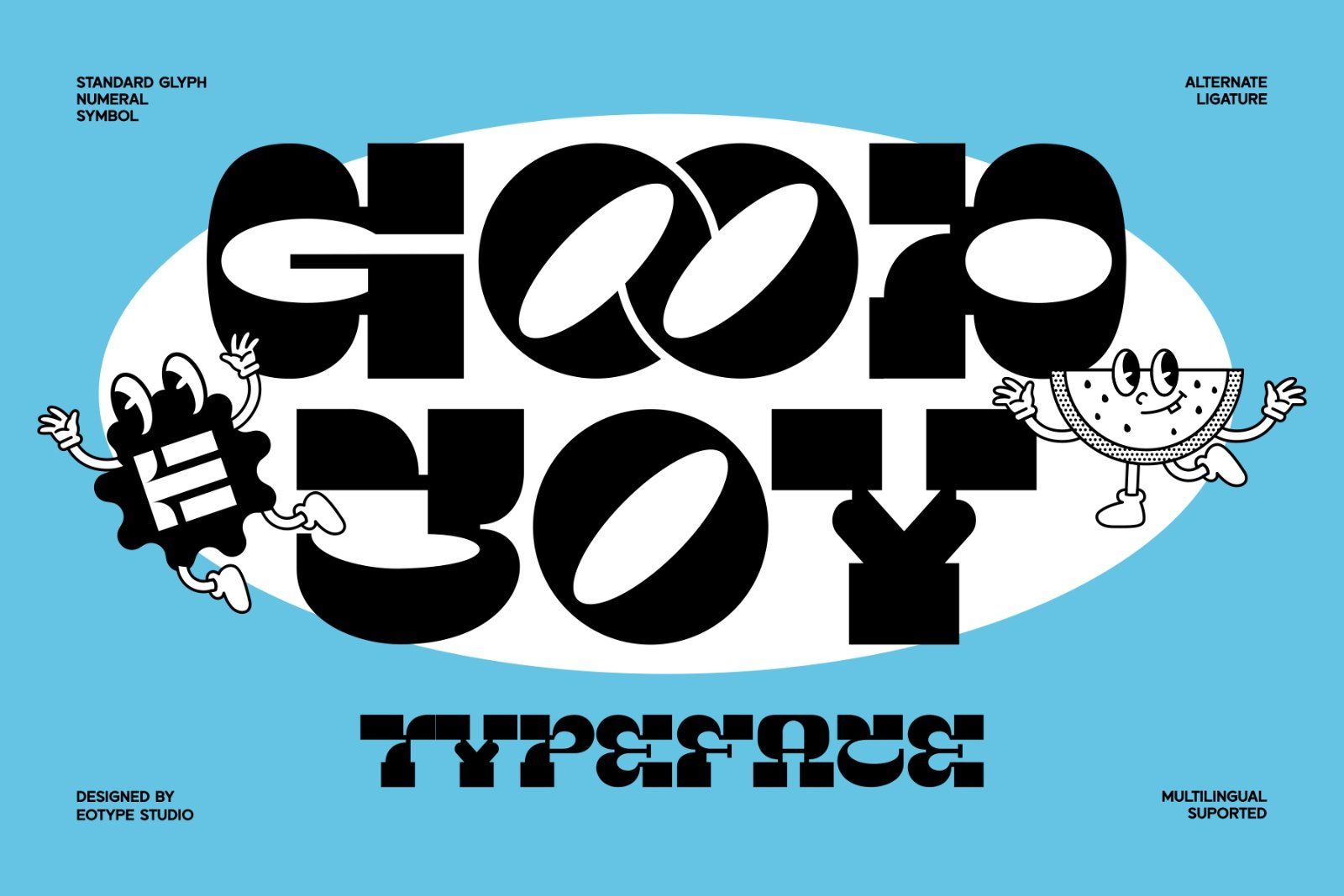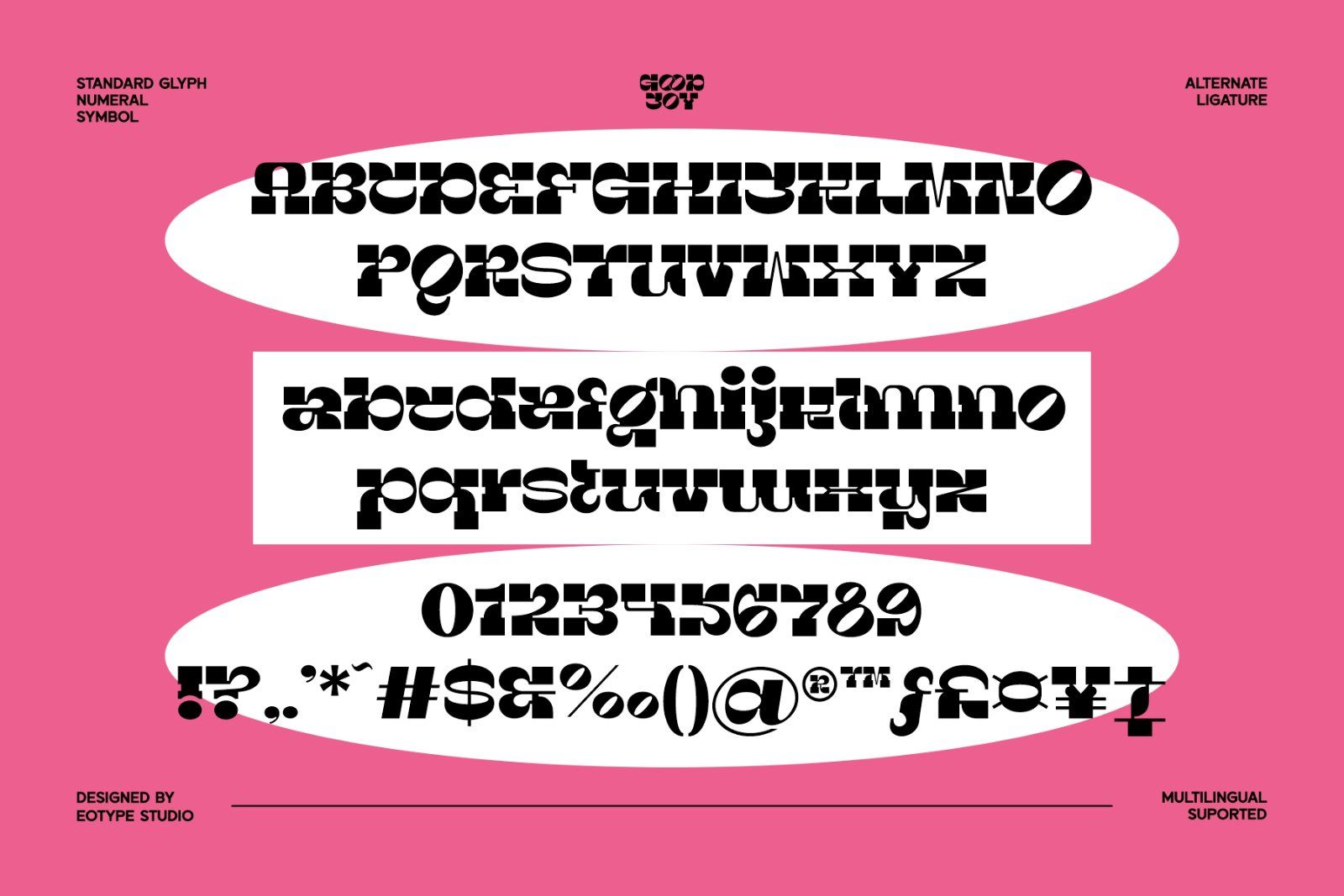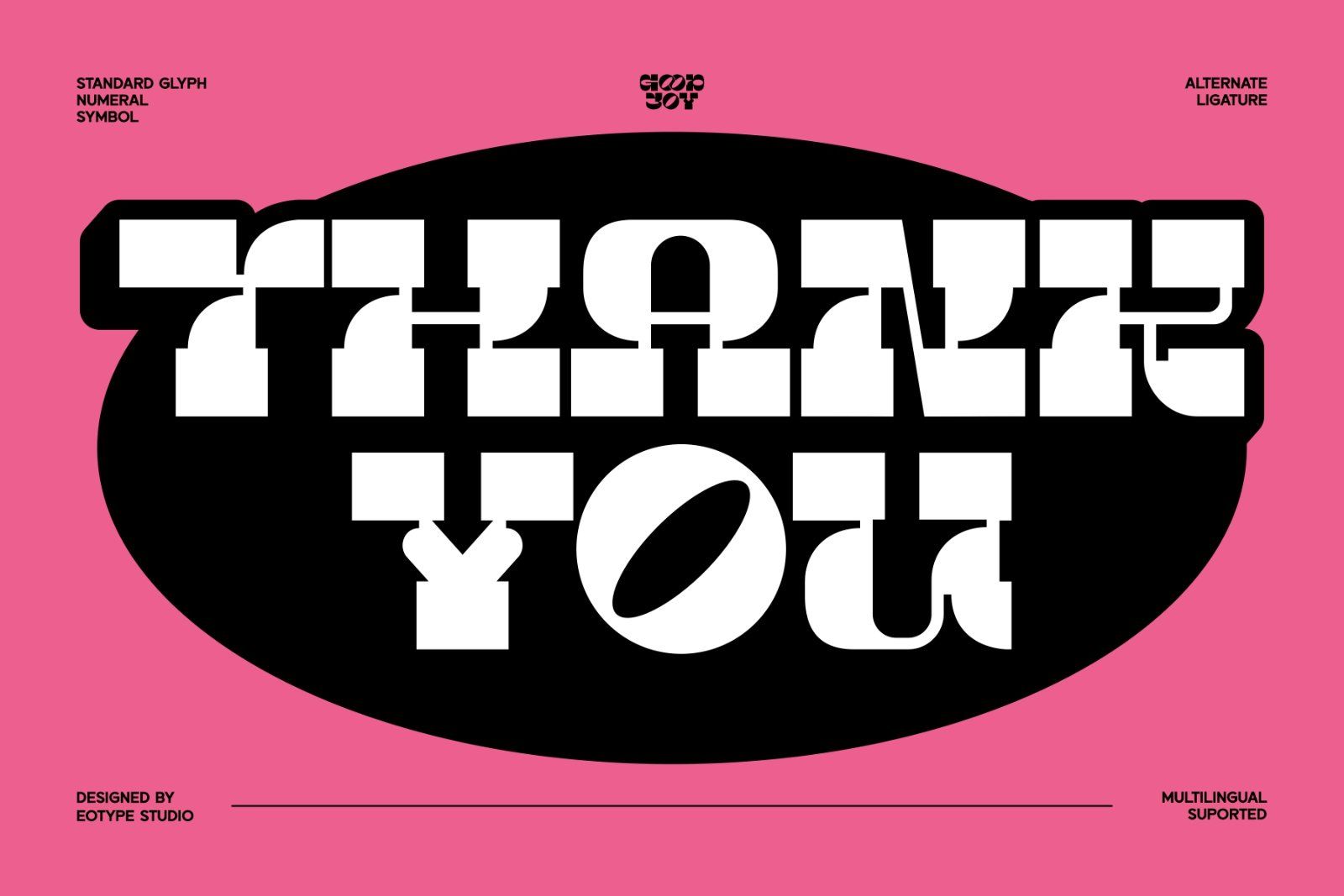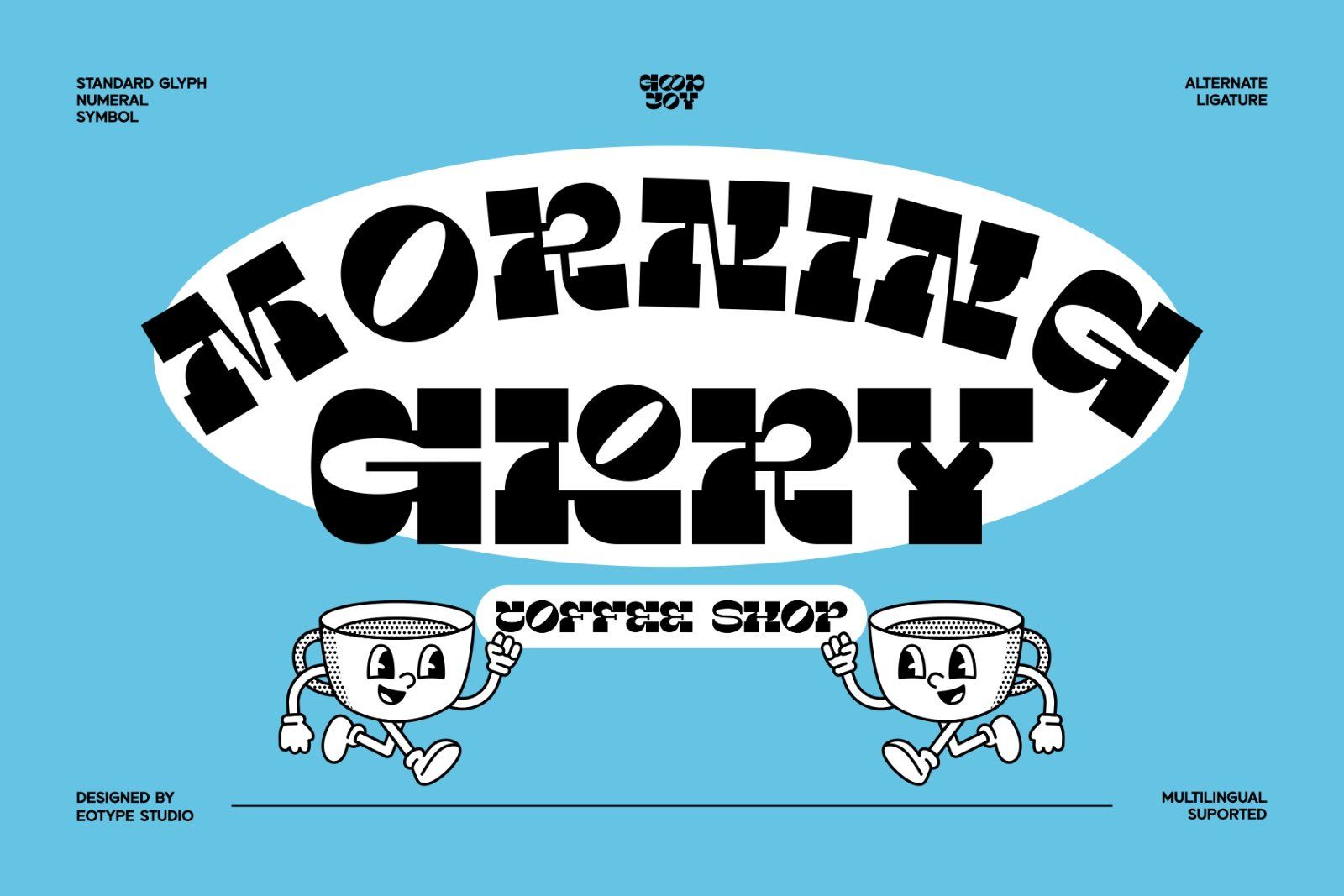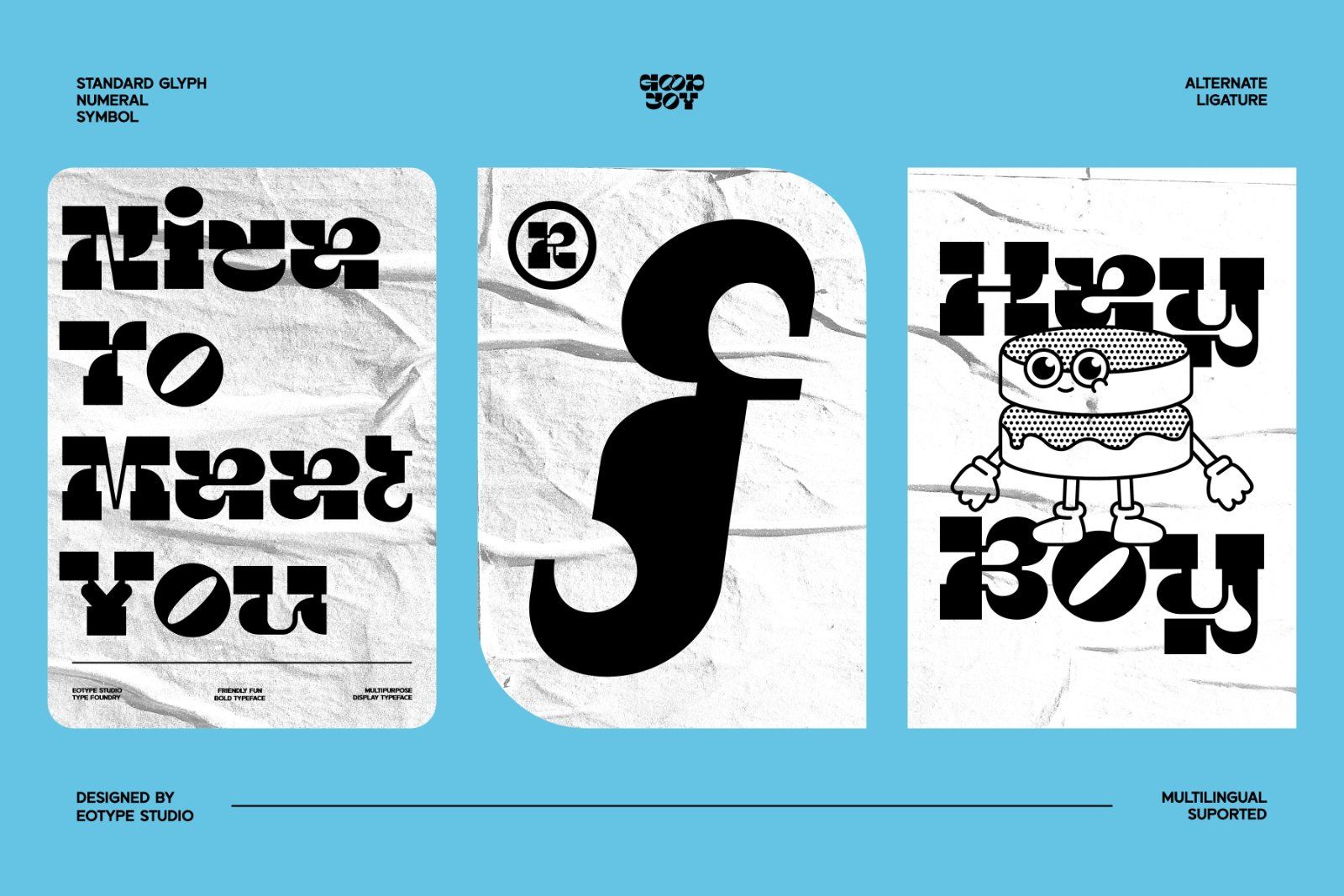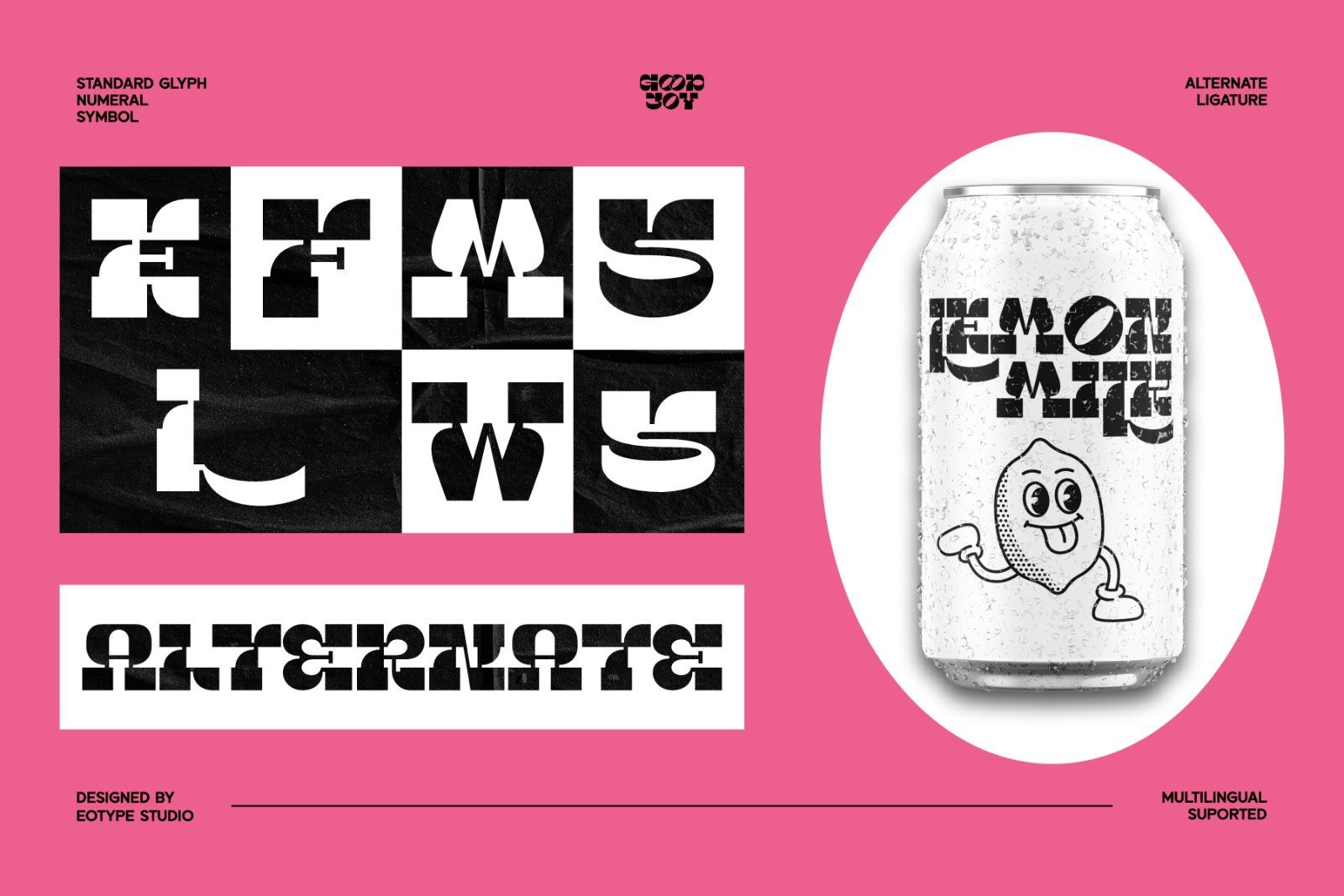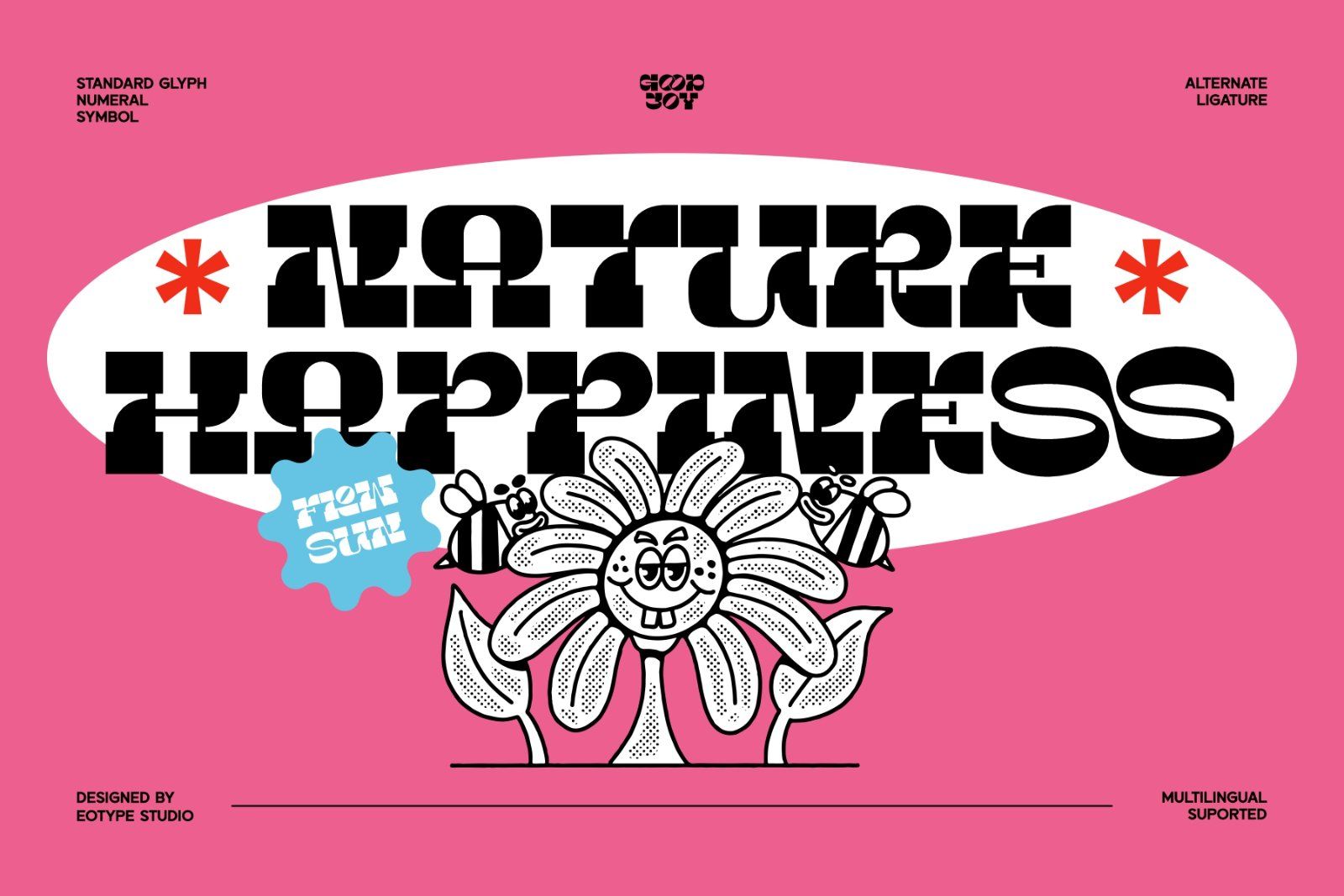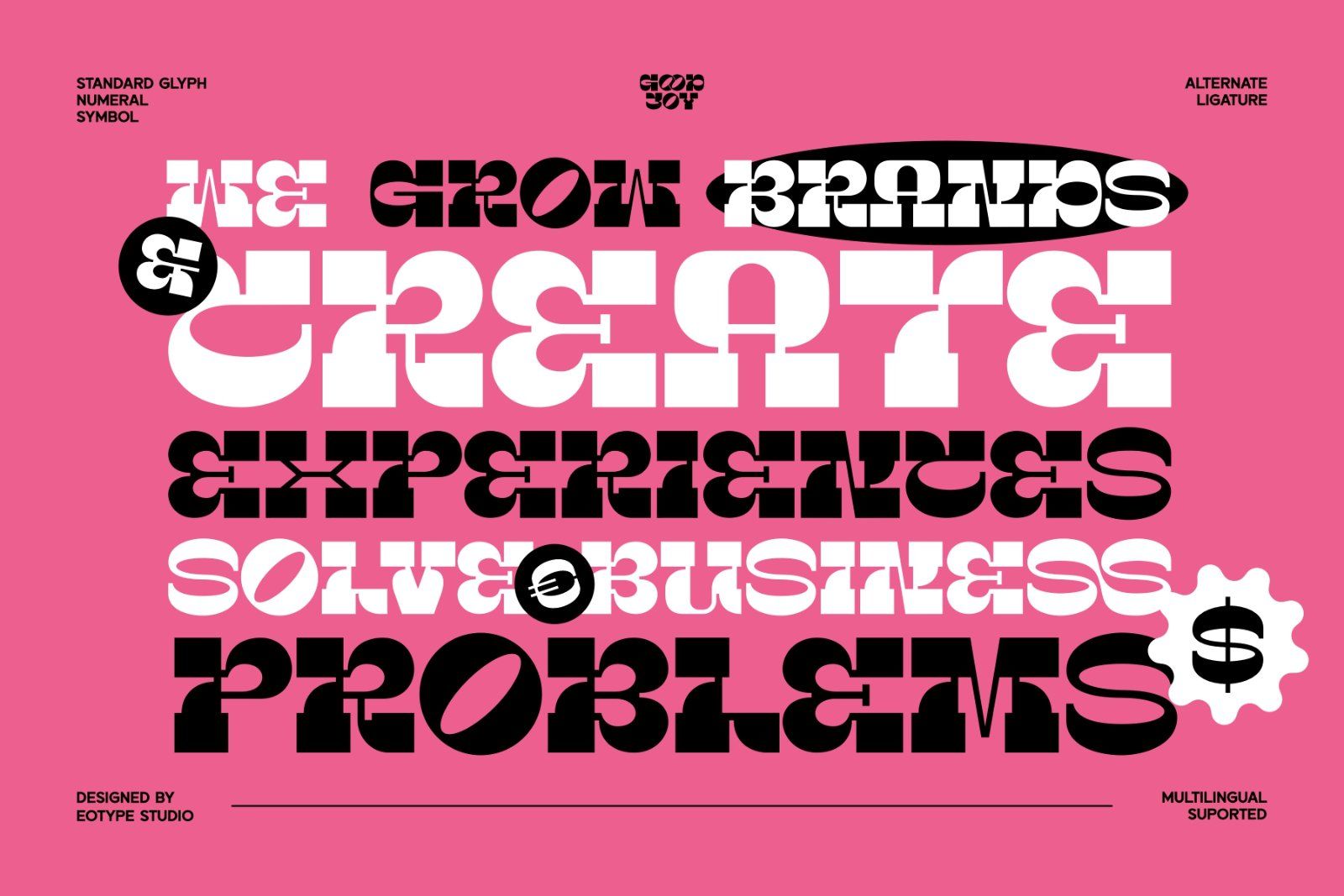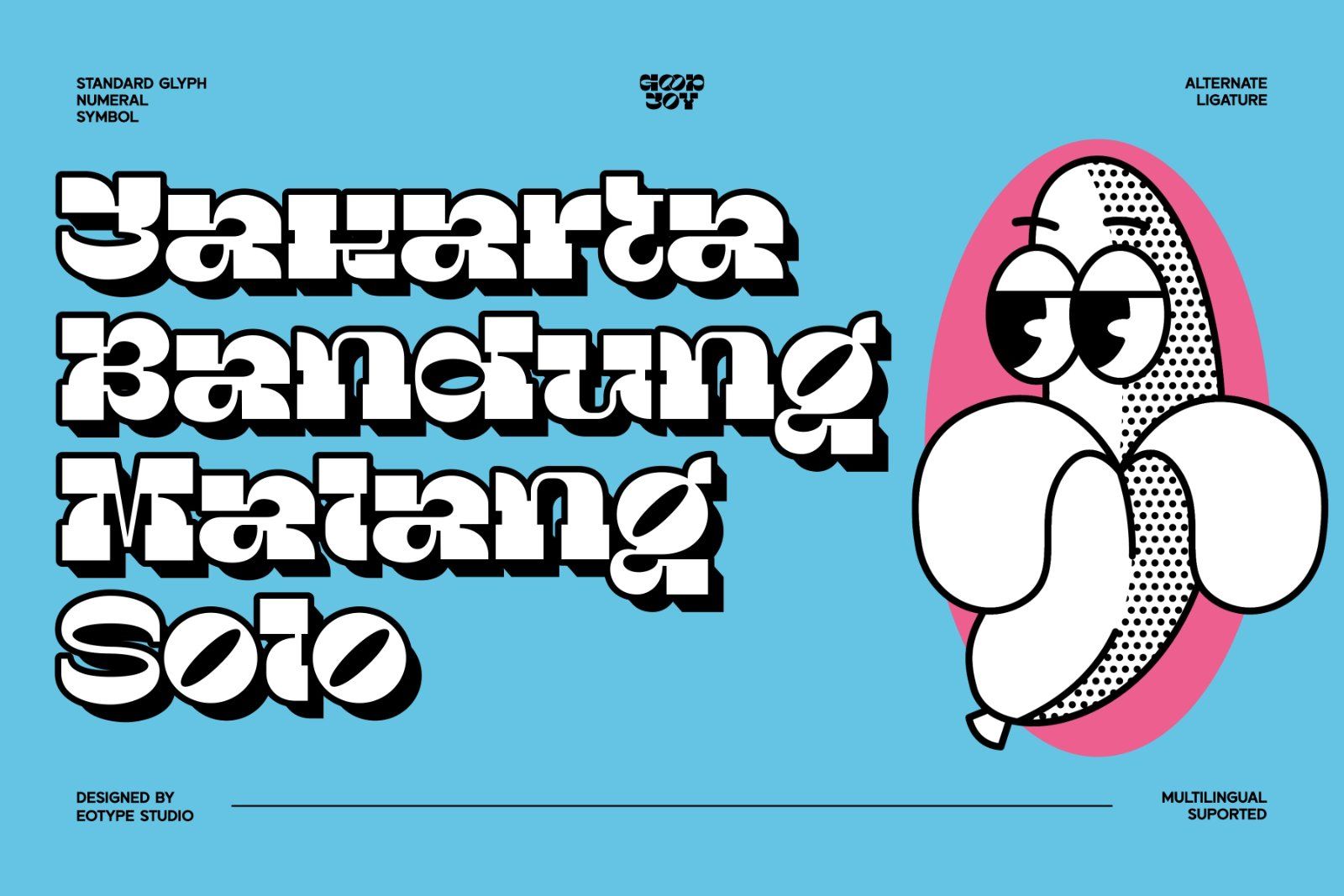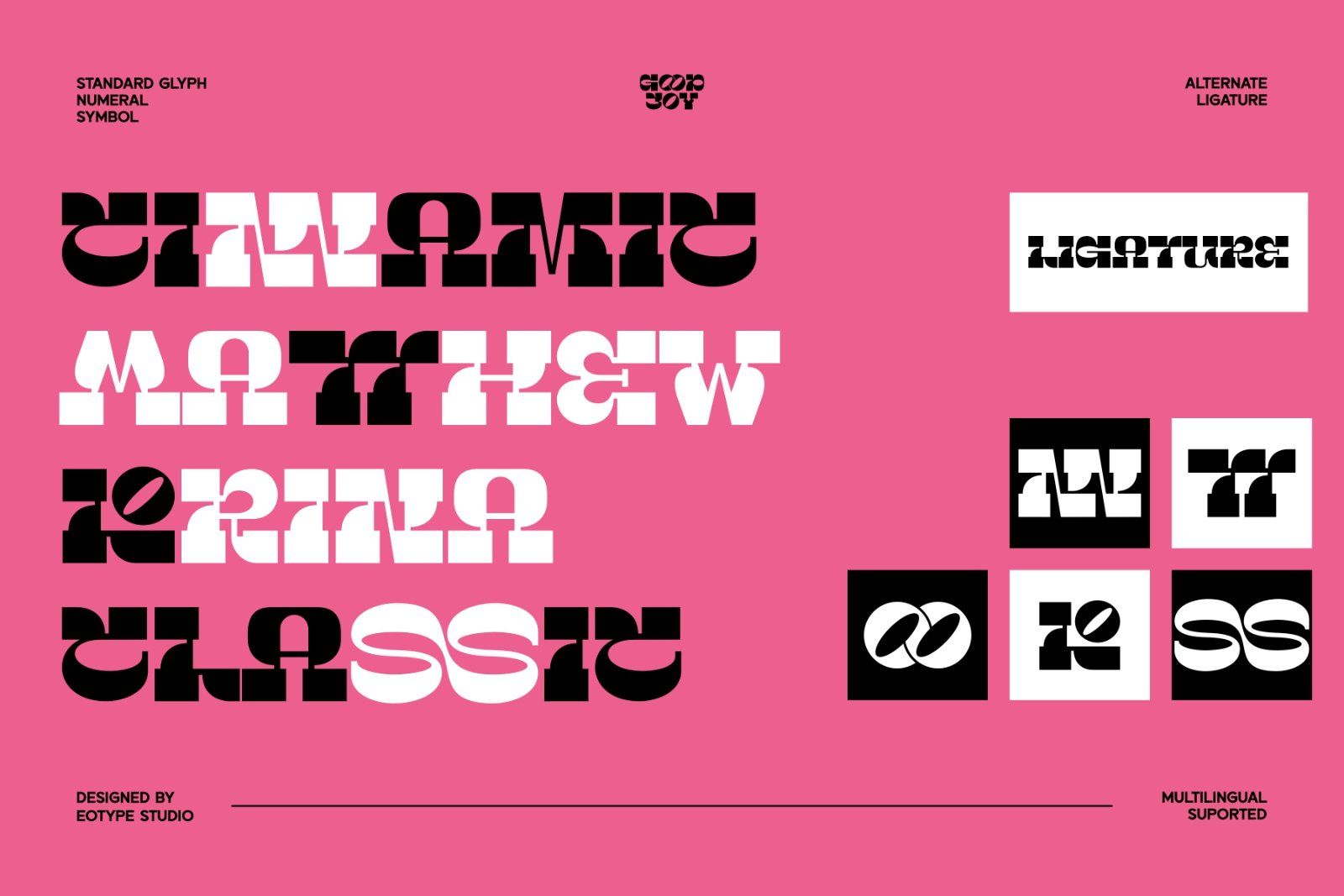
Good Joy is unique and versatile slab serif display font. This font can give your designs a playful and friendly impression. This font comes with alternative style and ligature features which are suitable for various projects such as logos, product labels, posters and many more.